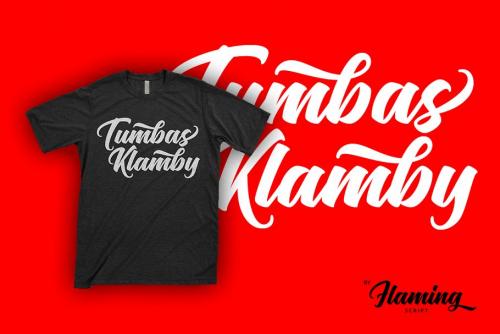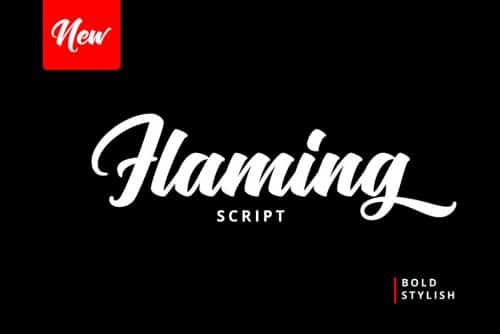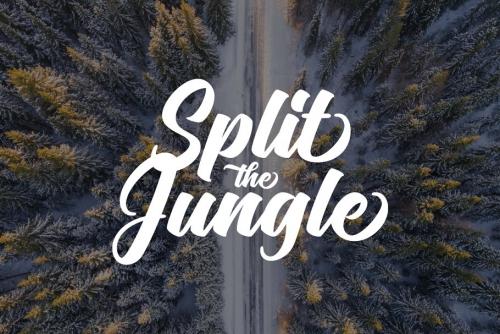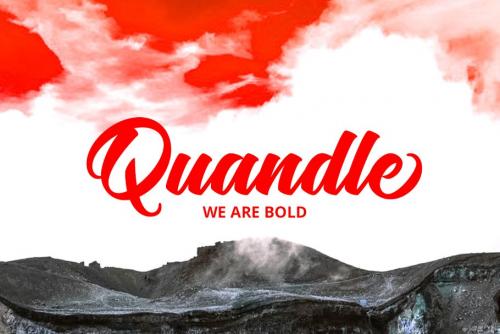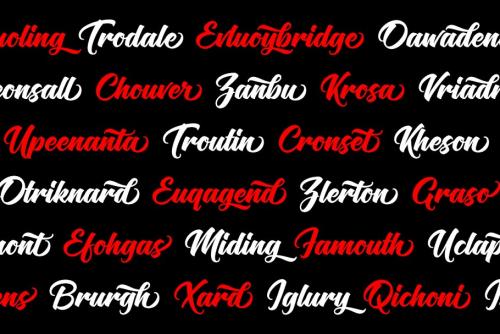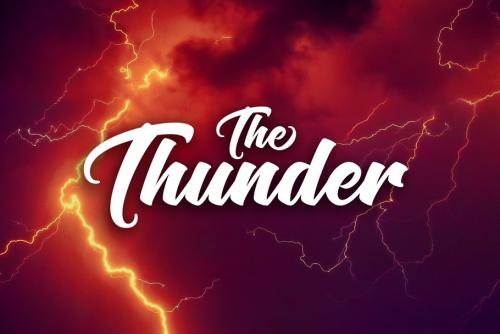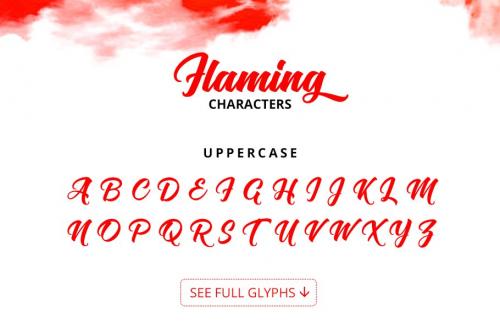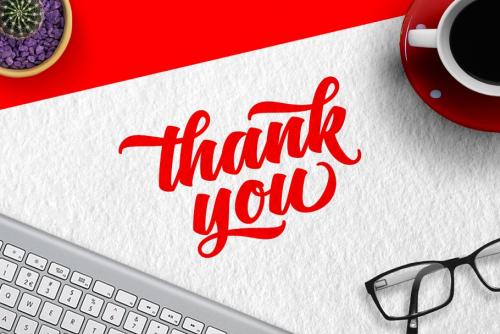
Flaming Script Font designed by HRLN. Flaming is a bold and stylish script font. Can be used for your various design projects such as posters, magazine covers, t-shirt designs, flyers, logotype and much more.